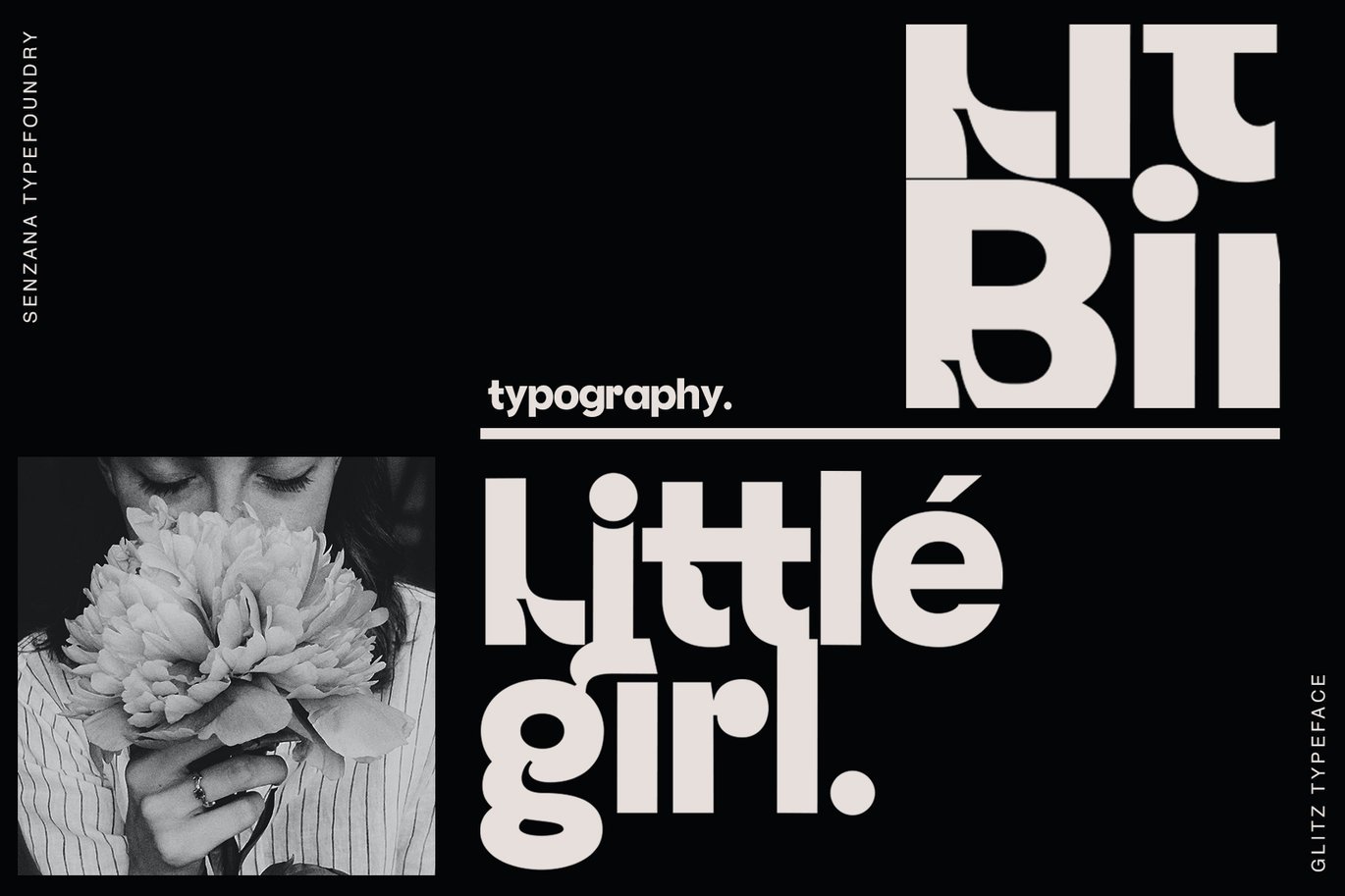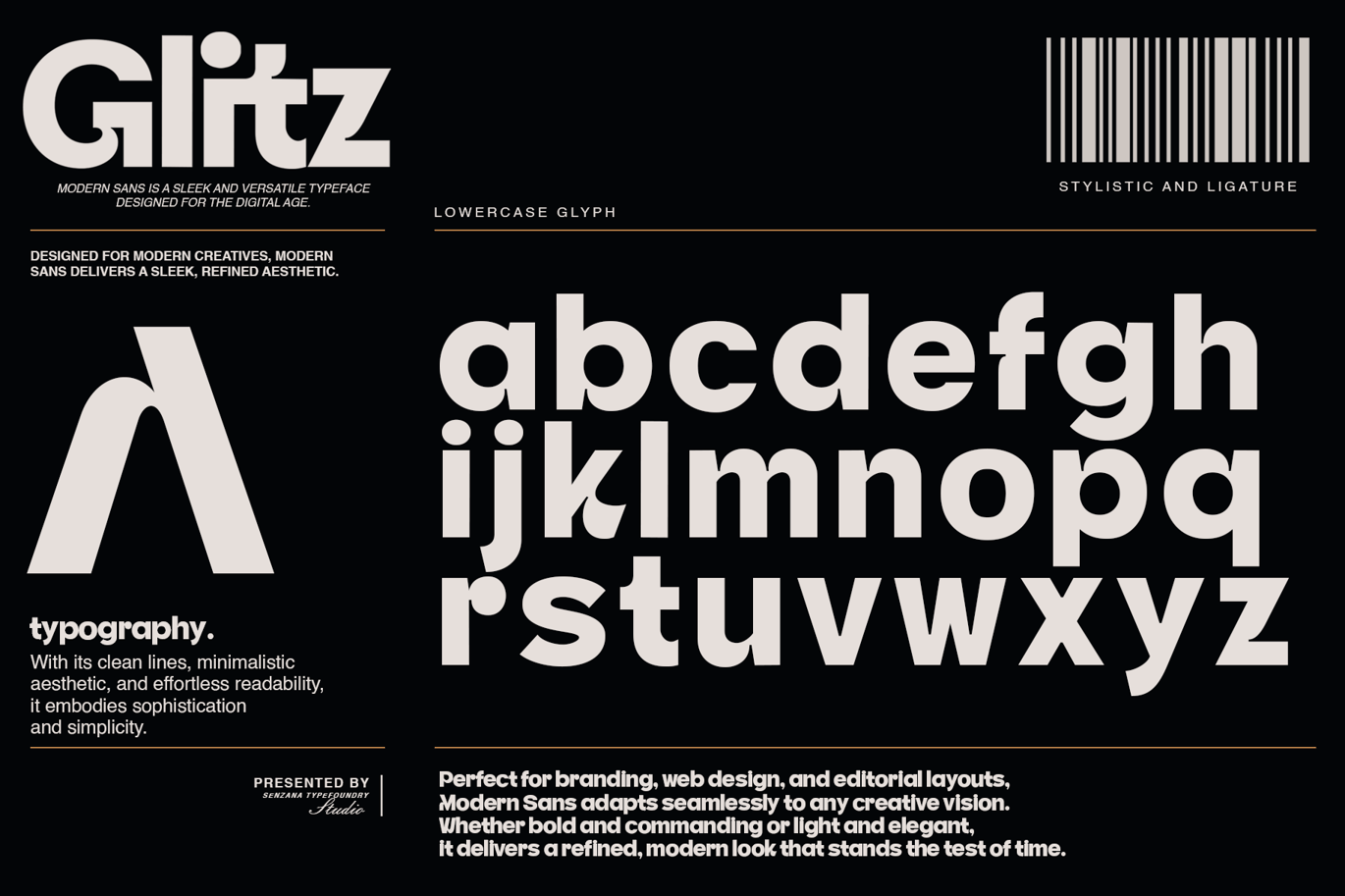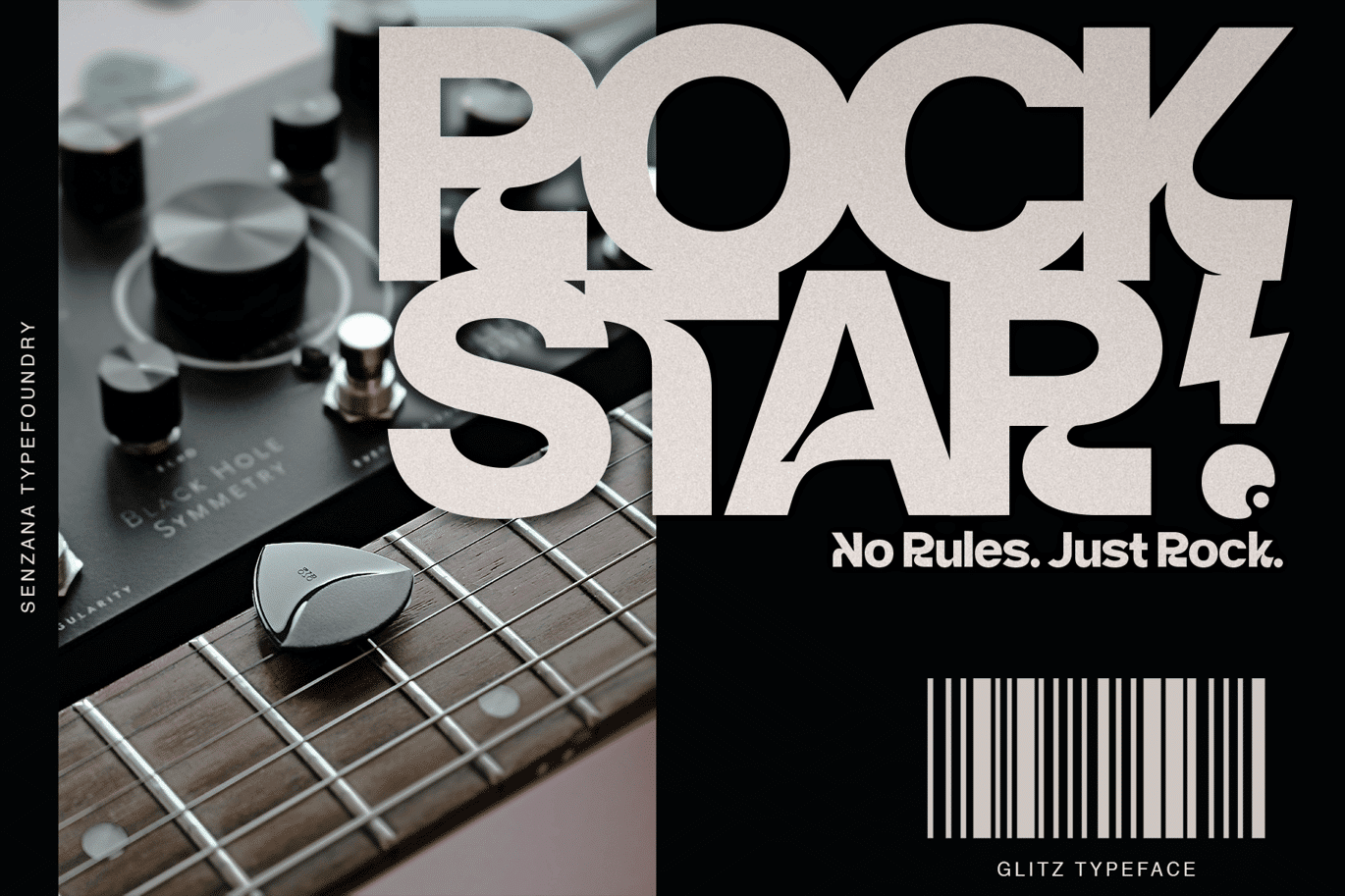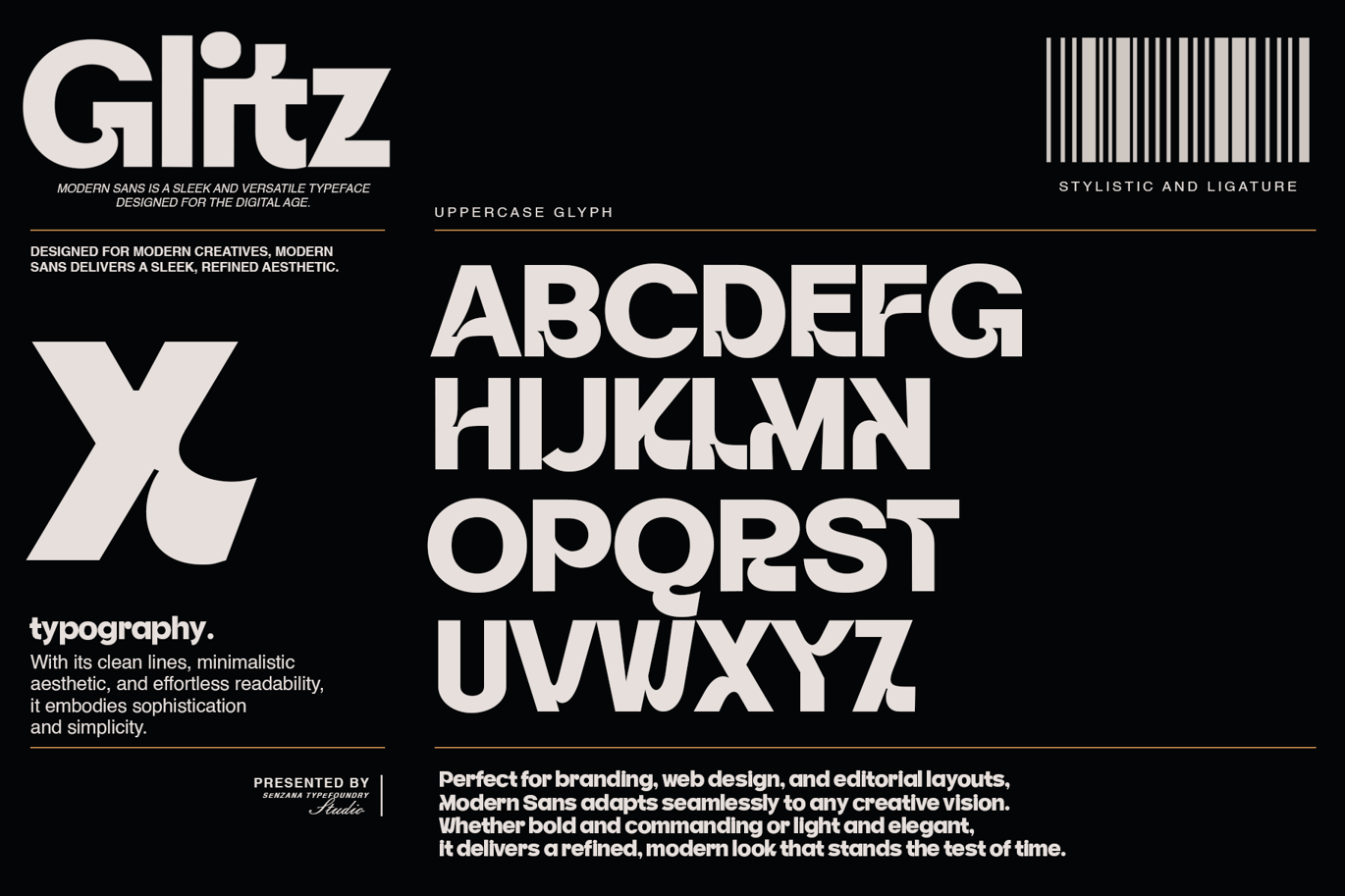
Glitz Font
Glitz is a modern sans-serif typeface that blends elegance, simplicity, and uniqueness in perfect harmony. Designed to create a sleek and polished look, Glitz is ideal for those who seek a refined yet minimalist visual identity.
The font features clean, well-balanced lines and subtle curves that give it a contemporary and professional appeal. Its simplicity doesn’t compromise character; instead, it enhances legibility while retaining a distinct, stylish charm that makes it stand out.
Whether used in branding, headlines, logos, or editorial layouts, Glitz effortlessly elevates any design with its modern, timeless aura. Its versatile style makes it suitable for both formal and creative projects, providing flexibility across digital and print media.
In short, Glitz is more than just a font—it’s a statement of sophistication with a hint of individuality.Feature